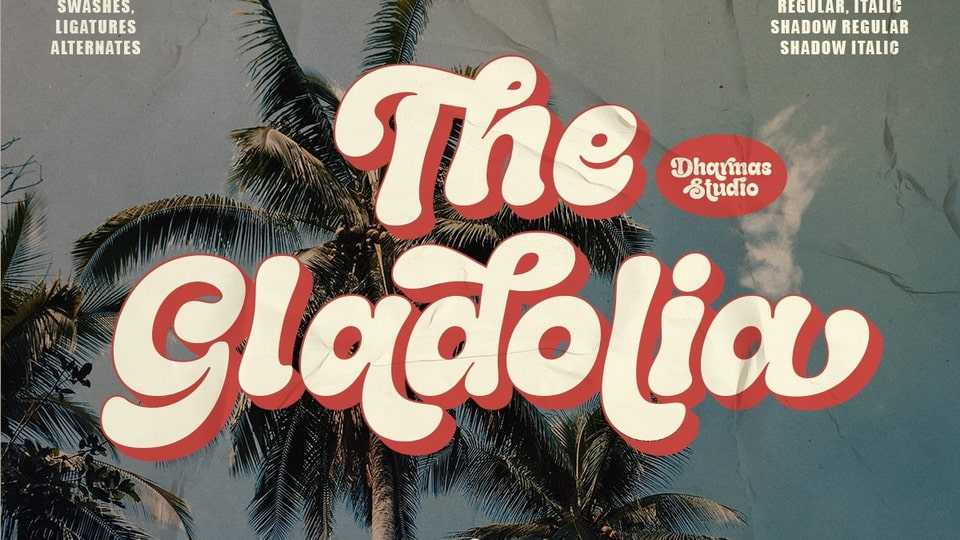
Download Gladolia font, a chunky typeface with a unique retro style that is sure to make your designs stand out. Gladolia font is perfect for a retro 80s theme, and can be used for cover magazine, brochure, logo, headline or quotes.